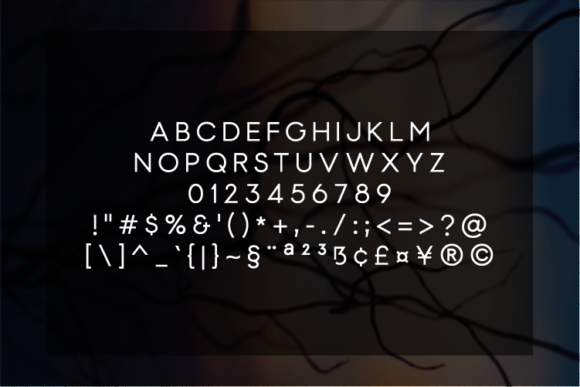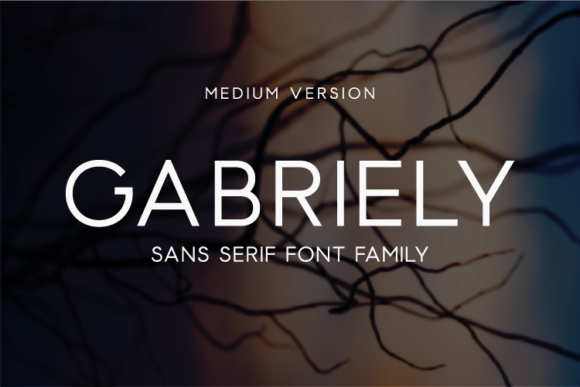
Discover the Elegance of Gabriely Medium Font: A Modern Sans Serif Typeface
In the world of typography, a font can make or break the visual appeal of a project. For designers and crafters seeking a clean, modern, and timeless look, the Gabriely Medium Font is an essential asset to own. This beautifully crafted sans serif typeface has been designed with great attention to detail, making it a standout in the realm of digital and print design.
What Makes Gabriely Medium Font Special?
Gabriely is not just another font; it’s a meticulously designed typeface that embodies simplicity and elegance. Its clean lines and modern aesthetic make it perfect for a wide range of projects, from digital applications like websites and mobile apps to print materials such as brochures, posters, and business cards.
The creator of Gabriely has passionately worked on every detail, ensuring that the font is not only aesthetically pleasing but also highly legible. This makes Gabriely an excellent choice for body text and headings, providing a professional look to any project.
Key Features of Gabriely Medium Font
- Clean and Modern Design: Gabriely boasts a sleek and contemporary look that will elevate the visual appeal of your projects.
- Sans Serif Typeface: The absence of serifs gives Gabriely a streamlined appearance, perfect for digital and modern print designs.
- High Legibility: The font’s clear and simple design ensures excellent readability, making it suitable for both headings and body text.
- Attention to Detail: Every aspect of Gabriely has been carefully crafted to provide a premium look and feel.
- Versatility: Whether you’re working on a website, mobile app, or print material, Gabriely can adapt to any design requirement.
Why Choose Gabriely Medium Font?
Choosing Gabriely for your design projects comes with numerous benefits. Its timeless look ensures that your work will remain stylish and relevant for years to come, avoiding the quickly outdated appearance that some fonts may have. Moreover, the font’s simplicity allows it to pair well with a wide range of other typefaces, offering great flexibility in design.
For designers and crafters looking for a professional edge, Gabriely is an invaluable resource. Its clean and modern aesthetic can transform the look of a project, making it more engaging and sophisticated. Whether you’re working on a personal project or a client’s commission, Gabriely can help you achieve a polished and refined finish.
How to Use Gabriely Medium Font in Your Projects
- Web Design: Enhance your website’s typography with Gabriely, making it more inviting and professional.
- Graphic Design: Use Gabriely for print materials like brochures, posters, and business cards to give them a modern edge.
- Digital Illustration: Add a touch of elegance to your digital illustrations and artwork with Gabriely.
Gabriely Medium Font is a versatile and stylish typeface that can elevate the quality of any design project. Its clean, modern sans serif design, combined with its high legibility and attention to detail, makes it an essential tool for designers and crafters. By incorporating Gabriely into your typography arsenal, you’ll be able to achieve a timeless and sophisticated look that sets your work apart.
Whether you’re a seasoned designer or a crafting enthusiast, Gabriely Medium Font is a great asset to own. Its ability to bring a simplistic yet elegant look to any project makes it a valuable resource for anyone looking to enhance their design work.